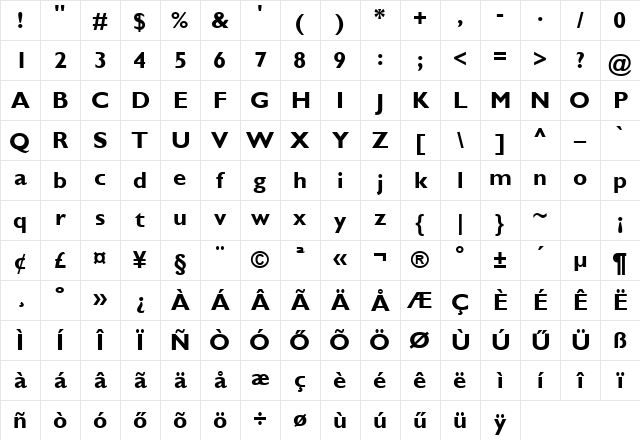
Gill-H-Bold Regular
Design Context for Gill-H-Bold
Gill-H-Bold is a composed and adaptable typeface that performs quietly and consistently across a wide range of design contexts. Its bold stroke weight gives it real presence on the page.